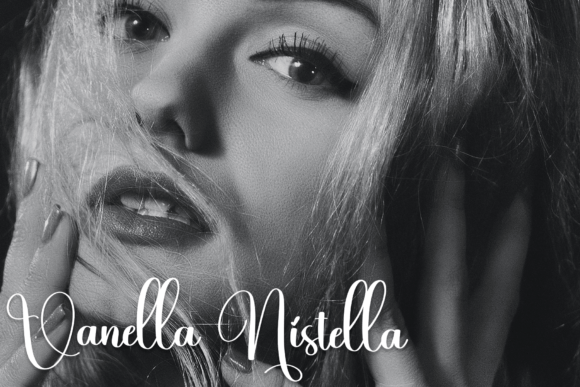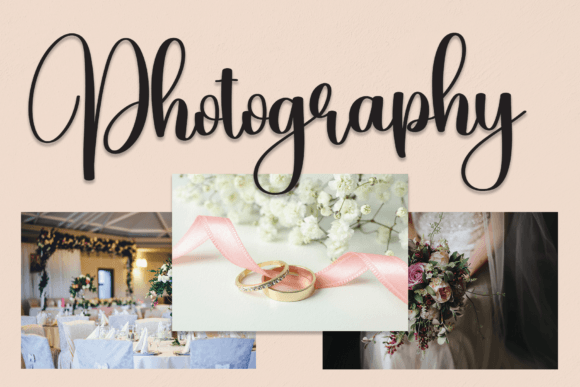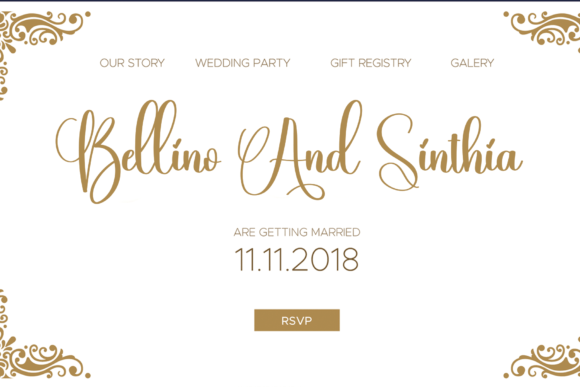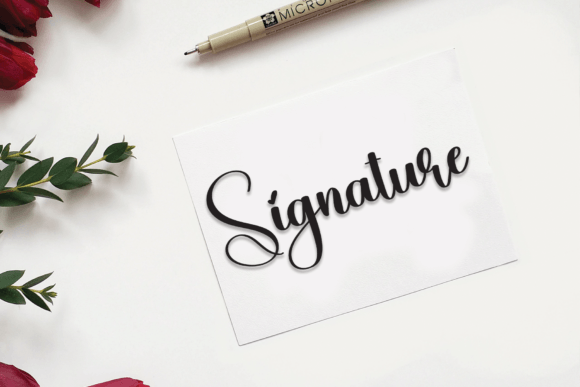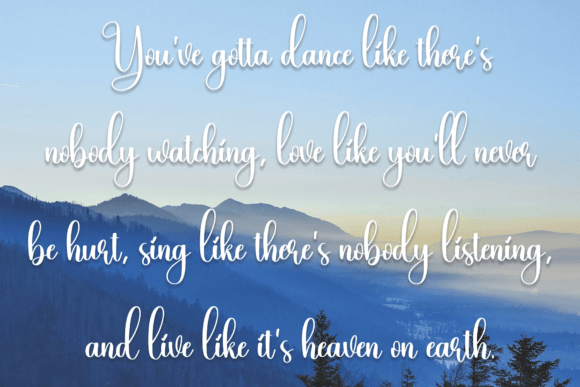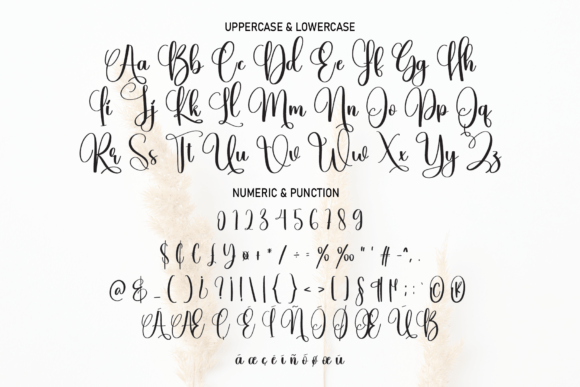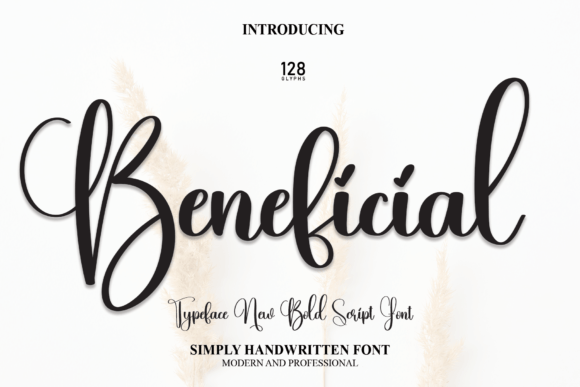
Introducing Beneficial Font: Elevate Your Designs with Elegance and Sophistication
Are you tired of using the same old fonts in your designs? Look no further! Beneficial Font is here to revolutionize your creative projects with its exquisite handwritten style. Masterfully designed to become a true favorite, this stunning font combines classy calligraphic influences with a contemporary twist, making it perfect for designers and crafters seeking to add a touch of elegance to their work.
The Perfect Blend of Classic and Modern
Beneficial Font boasts a unique blend of traditional calligraphy and modern flair, setting it apart from other fonts in its category. Its beautiful, flowing lines and delicate strokes evoke a sense of sophistication and refinement, while its fresh and contemporary feel ensures it remains relevant and on-trend. Whether you’re working on a branding project, creating wedding invitations, or designing social media graphics, Beneficial Font is the perfect choice for adding a touch of luxury and poise.
What Makes Beneficial Font So Special?
- Exquisite Handwritten Style: Beneficial Font is a true masterpiece, crafted with love and care to deliver a truly exceptional typing experience. Its handwritten style adds a personal touch to any project, making it perfect for designers and crafters seeking to create unique and eye-catching designs.
- Classy Calligraphic Influences: This stunning font draws inspiration from traditional calligraphy, incorporating elegant flourishes and delicate strokes that evoke a sense of sophistication and refinement.
- Contemporary and Fresh: Despite its classic influences, Beneficial Font feels remarkably contemporary and fresh, making it perfect for designers seeking to create modern and on-trend designs.
- Versatile and Easy to Use: Beneficial Font is incredibly versatile, suitable for a wide range of design applications, from branding and advertising to packaging and digital media.
How to Use Beneficial Font in Your Designs
Using Beneficial Font in your designs is incredibly easy. Here are a few tips to get you started:
- Pair it with Bold Fonts: Combine Beneficial Font with bold, sans-serif fonts for a striking contrast that adds visual interest to your designs.
- Use it for Headings and Titles: Beneficial Font is perfect for headings and titles, adding a touch of elegance and sophistication to your designs.
- Add a Personal Touch: Use Beneficial Font to add a personal touch to your designs, creating a sense of warmth and connection with your audience.
Why Designers and Crafters Love Beneficial Font
Beneficial Font has quickly become a favorite among designers and crafters, and for good reason. Here are just a few reasons why:
- Unique and Eye-Catching: Beneficial Font is a true showstopper, adding a unique and eye-catching element to any design.
- High-Quality Design: This stunning font is crafted to the highest standards, ensuring a flawless typing experience and exceptional design results.
- Easy to Read and Understand: Despite its elegant and refined style, Beneficial Font remains remarkably easy to read and understand, making it perfect for designs that require clarity and precision.
In conclusion, Beneficial Font is a true gem, offering designers and crafters a unique and exquisite handwritten font that elevates their designs to new heights. With its perfect blend of classic and modern influences, this stunning font is sure to become a favorite among creatives seeking to add a touch of elegance and sophistication to their work. So why wait? Fall in love with Beneficial Font and bring your projects to the highest levels!